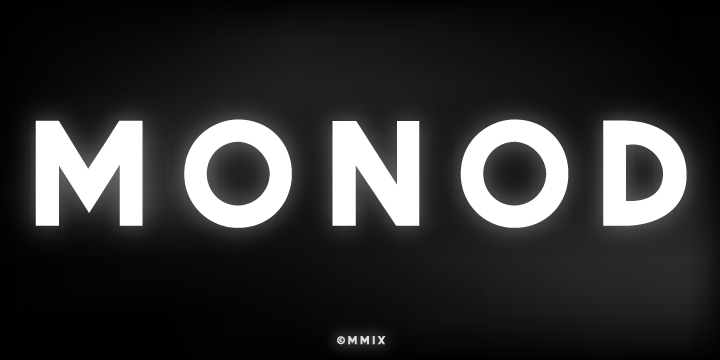
Monod Font is a sleek, precise, and highly functional monospaced typeface, perfect for designs that demand technical clarity, digital aesthetics, and uniform character spacing. Monospaced fonts, where every character occupies the same horizontal width, are essential for environments where alignment and readability of code or data are paramount. This makes Monod Font an excellent choice for coding environments (IDEs), data visualization, terminal displays, and technical documentation. Imagine it rendering clean and readable code in a developer's text editor, providing crisp output for log files and console output, or adding an authentic feel to retro-futuristic user interfaces. This font is also superb for programming tutorials, scientific data presentation, and any project where precision, efficiency, and a no-nonsense, functional visual identity are key. It doesn't just display text; it organizes information with absolute accuracy and an undeniable sense of digital order.
What Makes Monod Font So Exciting?
What makes Monod Font so exciting is its remarkable ability to blend the utilitarian clarity of a monospaced design with a contemporary aesthetic. It offers the consistent character width crucial for coding and data tables, while maintaining excellent legibility and a modern, professional appearance. This unique combination allows designers to create visually compelling content that is both highly functional and aesthetically pleasing, especially for users who spend hours looking at text-based interfaces. It’s a font that speaks with a precise and dependable voice, making it ideal for developers, designers, and content creators who want to convey reliability, technical expertise, and a clean, efficient aesthetic. Its consistent spacing makes it a go-to for situations where column alignment and predictability are essential.
Usage Examples for Monod Font
Monod Font excels in applications where fixed-width and clear data presentation are critical. Consider its use in:
• Software Development: Code editors, IDEs, and version control interfaces.
• Data Presentation: Tables, spreadsheets, and statistical graphics where columns must align perfectly.
• Terminal & Console Displays: Command-line interfaces, system logs, and debugging tools.
• Technical Writing: Manuals, guides, and specifications that include code snippets or structured data.
• Retro-Tech Aesthetics: Designs aiming for an old-school computer or digital screen look.
Monod Font Family and Weights
The Monod Font family typically offers a focused range of weights to provide comprehensive design flexibility within its monospaced format. While the focus is on uniform spacing, variations in stroke thickness enhance its utility across different contexts. You can generally expect to find key members that support diverse layout needs, such as:
• Monod Thin
• Monod Light
• Monod Regular
• Monod Medium
• Monod Bold
• Monod Italic (for various weights, offering a slanted version)
These various weights and styles empower designers to create effective visual hierarchies, emphasize important information, and maintain a consistent, polished, and highly functional look throughout all digital and print assets. The opportunity to utilize Monod Font Free Download is an excellent way to experience its unique precision and robust clarity for your personal projects.